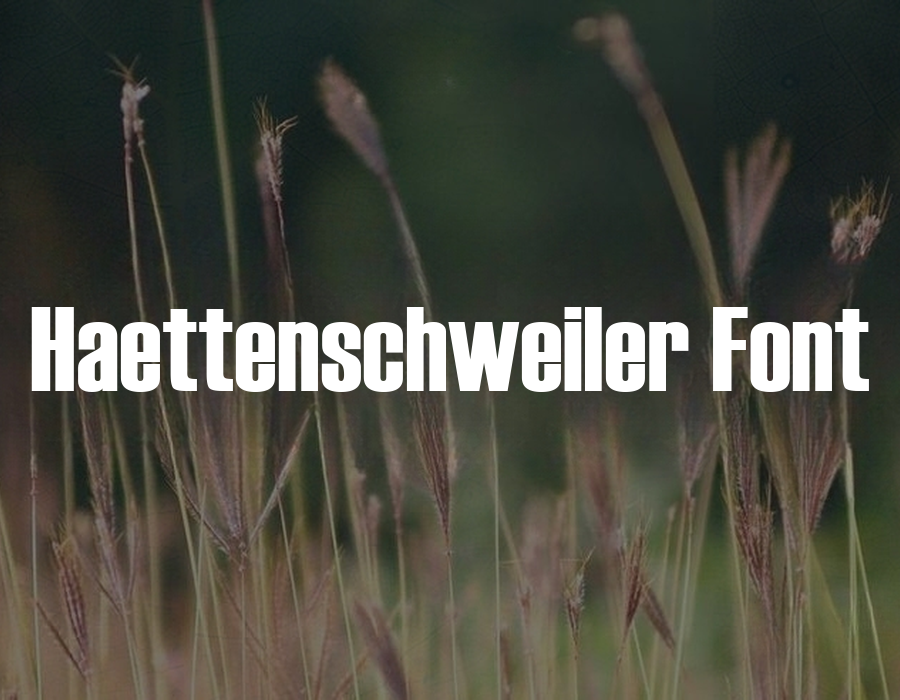
About Haettenschweiler Font
Haettenschweiler is a distinctive display typeface known for its extremely bold weight and dramatically condensed proportions, giving it a commanding, block-like presence. Originally designed in the 1950s, its character forms are simple and geometric with uniform stroke widths, creating a stencil-like or machined aesthetic. The font exerts a powerful visual force, making it a classic choice for attention-grabbing newspaper headlines, movie posters, and bold logos where space is limited but impact is essential. Its intense, no-nonsense style evokes a sense of authority and urgency, though its extreme compression limits its use to very short texts.